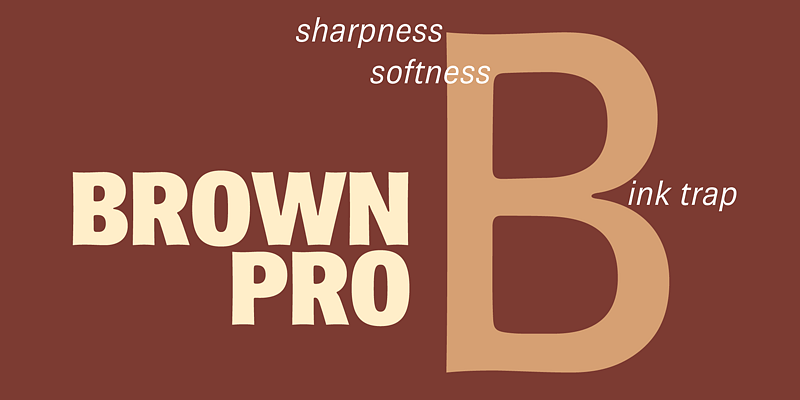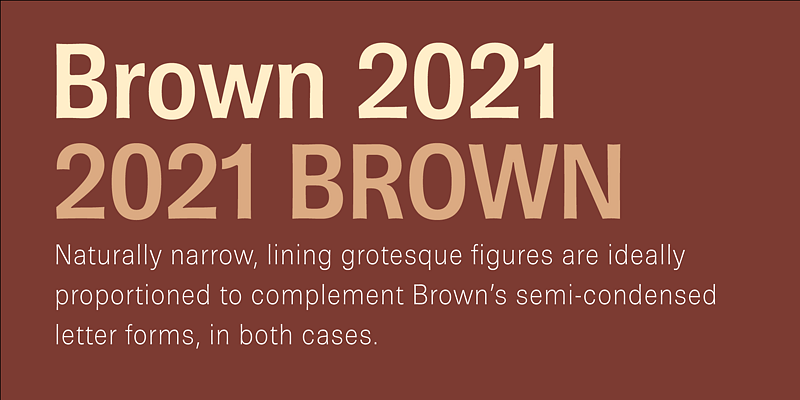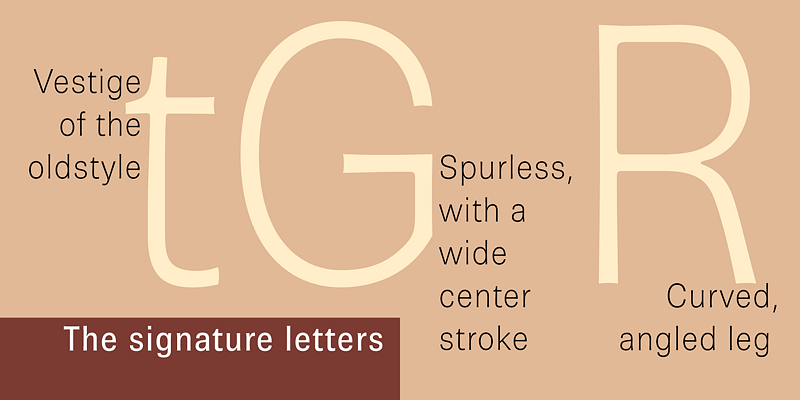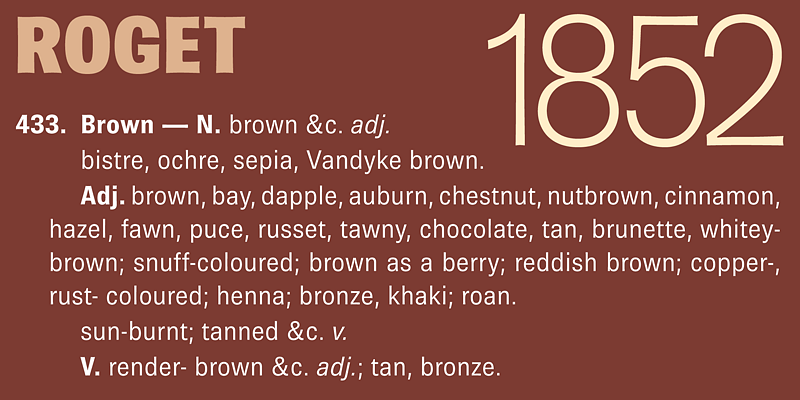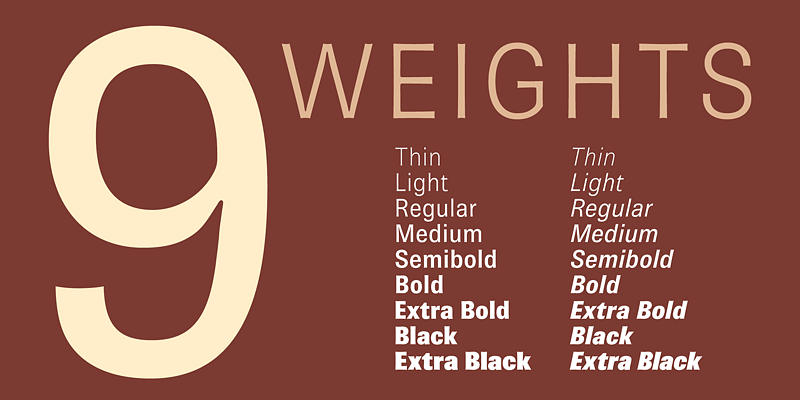
In the Post-modern view, formalism was symbolic of function more than the result of it, and this is certainly true of modernist types—prompting a reconsideration of the reductive notion of functionality espoused by 20th century sans-serifs. In Brown, functional complexity engenders a gently stylized distress (signifying the trace of letterpress process from which the neo-grotesque types were by no means immune), pre-empting the dulling action of offset printing at text size, while providing the otherwise austere form of headlines with the visual interest of display details.